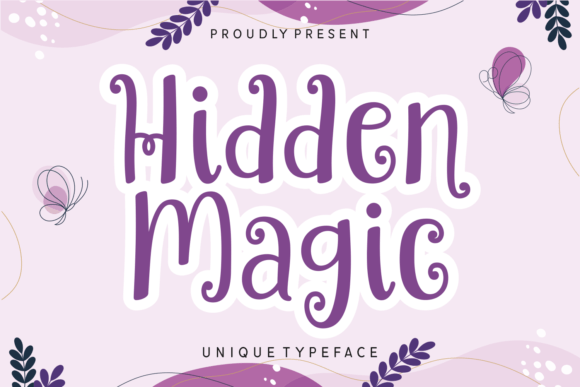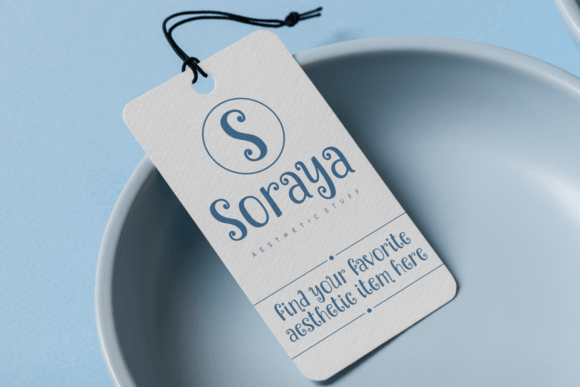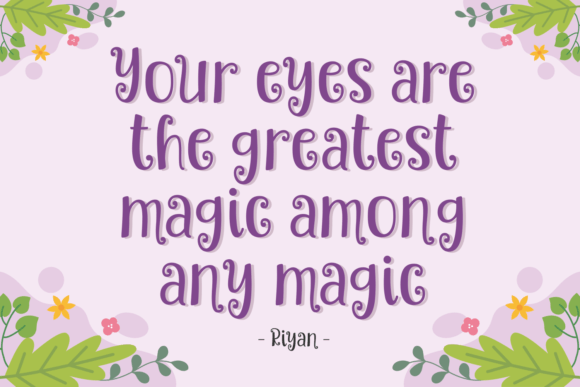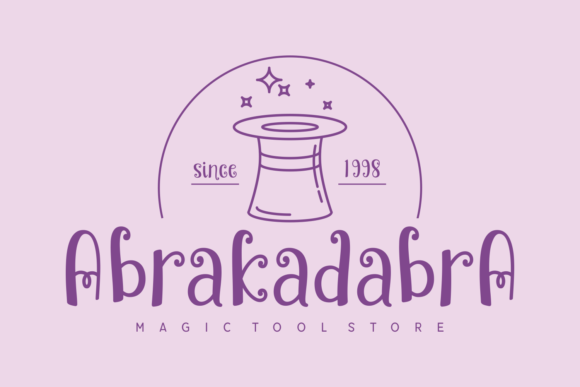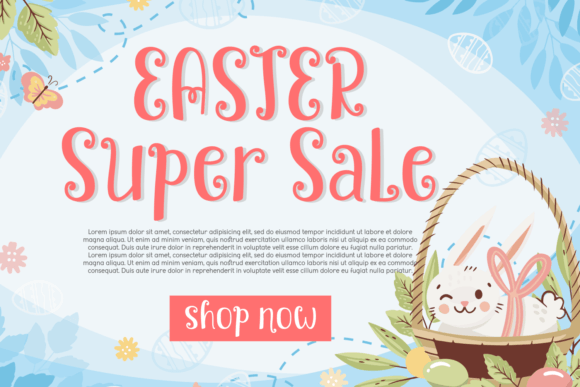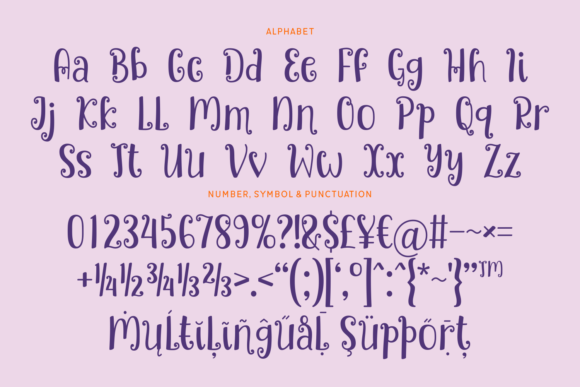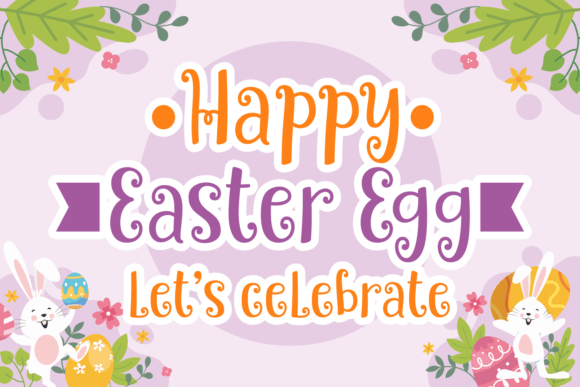
Hidden Magic Font
The Hidden Magic Font Download is a cute and playful handwritten script designed to add charm and creativity to your projects. With its curly strokes and quirky personality, this font delivers a fun, handmade touch that stands out across both digital and print designs. Because of its unique character, Hidden Magic works perfectly for invitations, greeting cards, posters, logos, and product packaging.
A Playful Handwritten Script with Unique Strokes
Hidden Magic combines joyful handwritten lines with charming curly details. Unlike plain typefaces, this Hidden Magic script font feels whimsical and lively, making it ideal for projects that need a fun and friendly personality. As a result, it adds individuality and warmth to every design.
Invitations and personal stationery always shine when handwritten typography is used. The Hidden Magic Font is excellent for wedding invitations, birthday cards, and seasonal greetings. Moreover, its playful curls make each project feel heartfelt and full of character.
Branding and Packaging with Hidden Magic Font
Typography sets the tone of a brand, and the Hidden Magic handwritten font is a great choice for boutique logos, packaging, and promotional designs. In addition, it creates a quirky and approachable brand identity that helps businesses stand out.
Posters, Titles, and Creative Displays
The Hidden Magic Font Download is also perfect for display projects such as posters, magazine titles, and banners. Therefore, it is a versatile option for designers who want their text to feel playful and memorable in both small and large-scale projects.
In today’s digital world, engaging fonts make content more appealing. The Hidden Magic typeface integrates seamlessly with Instagram posts, Pinterest graphics, YouTube thumbnails, and blogs. Its whimsical handwritten strokes ensure that your digital content feels creative and fun.
Why Designers Choose Hidden Magic Typeface
Designers love fonts that bring personality without sacrificing readability. Many playful fonts lose clarity, but the Hidden Magic handwritten script stays legible and stylish across all sizes. This balance makes it an excellent choice for professionals and hobbyists alike.